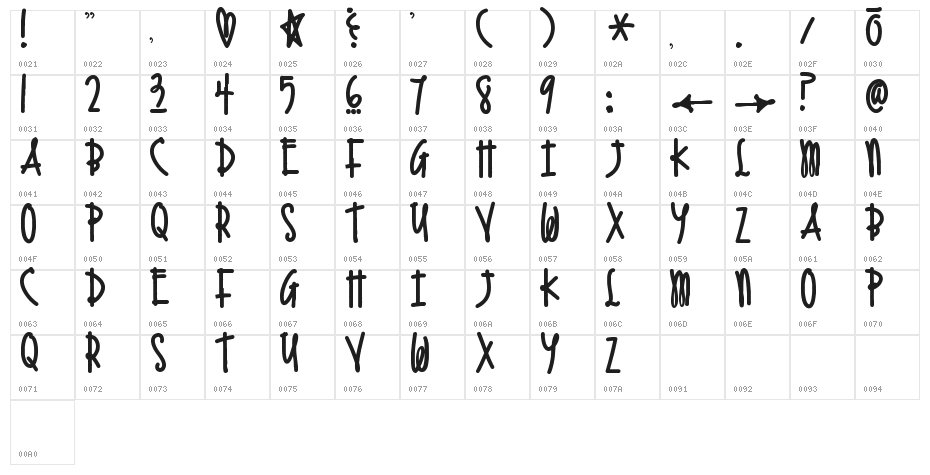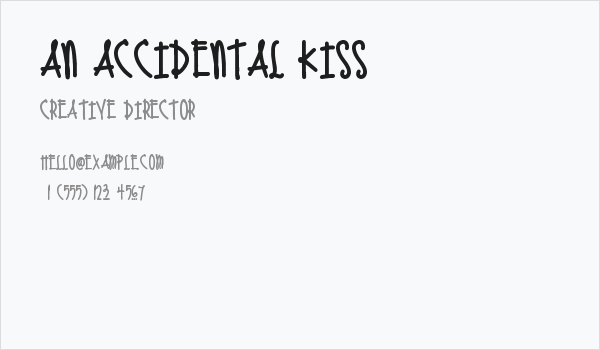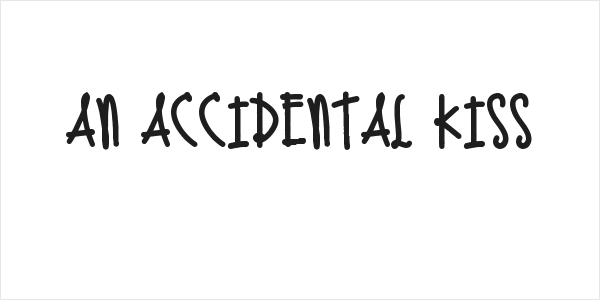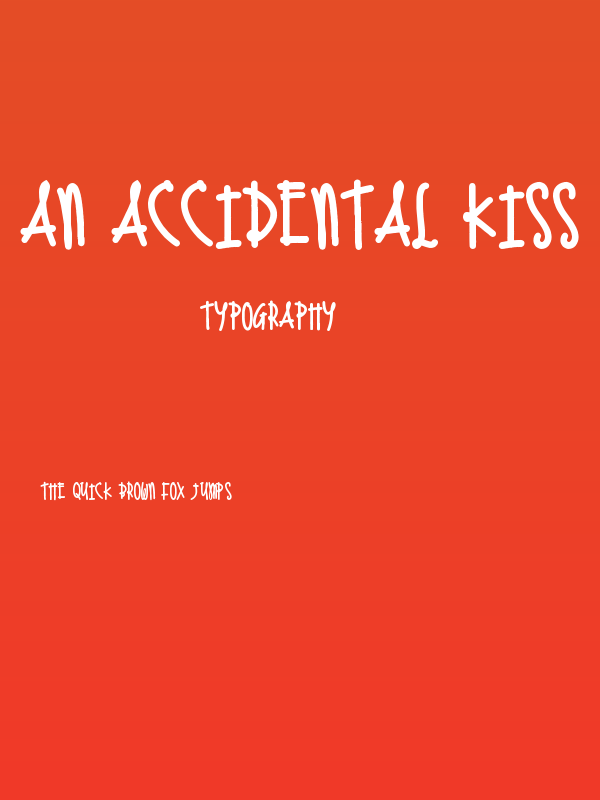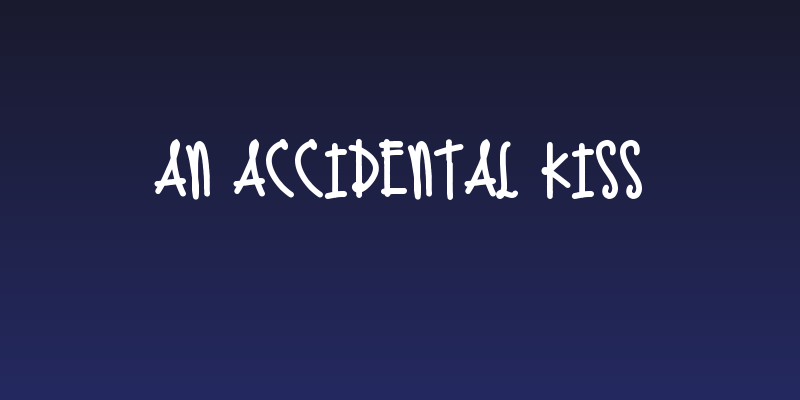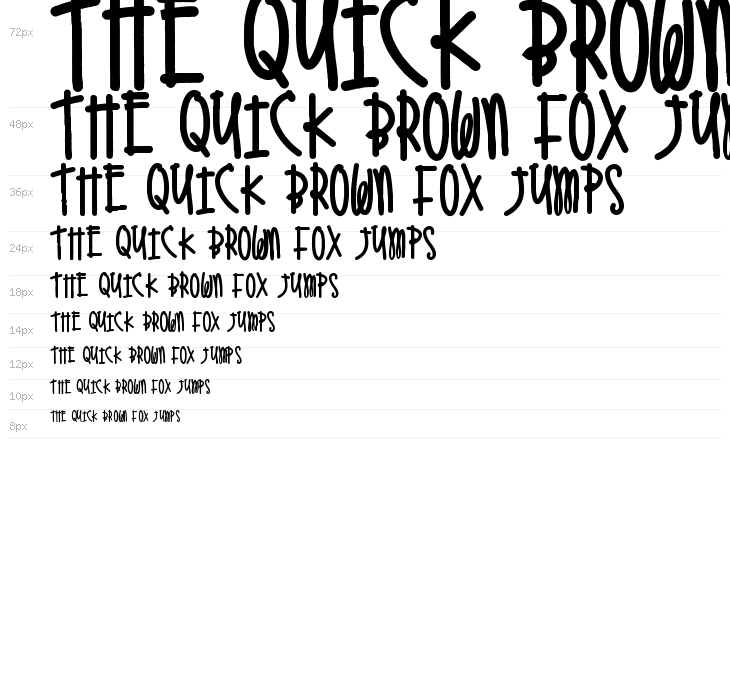
An Accidental Kiss Font
An Accidental Kiss Description
This font exhibits a playful and casual handwritten style, characterized by its bold and slightly irregular strokes. The letters are tall and narrow, with a consistent thickness that gives it a uniform appearance. The uppercase and lowercase letters maintain a cohesive look, with rounded edges and a slight slant that adds to its informal charm. Numbers and special characters follow the same design principles, ensuring a harmonious overall look. This font's unique personality makes it suitable for projects that require a touch of whimsy and creativity.
| Proposed Projects | Ideal for greeting cards, children's books, playful branding, and social media graphics. |